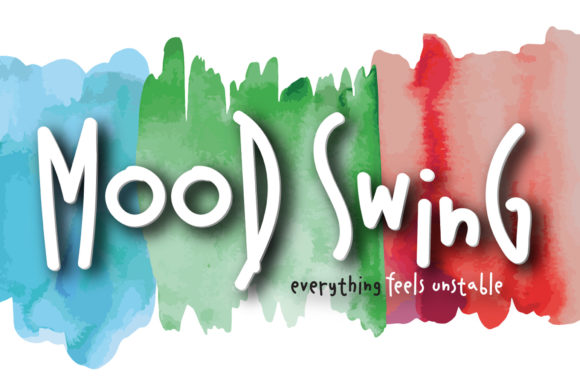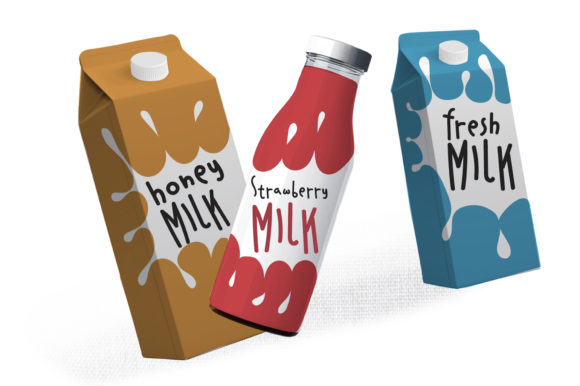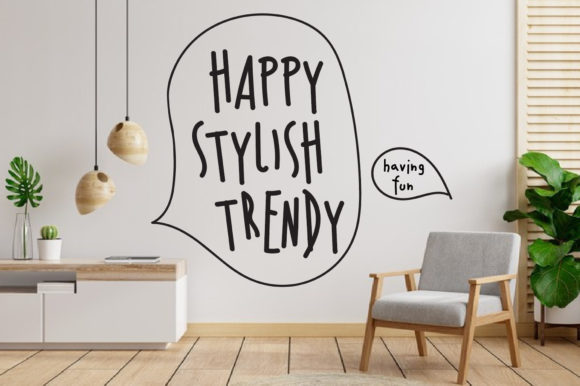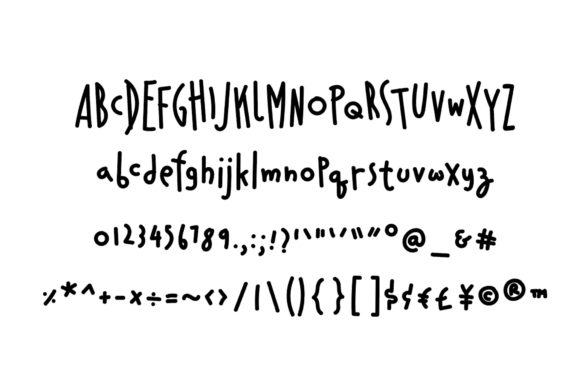
About Mood Swing Font
Mood Swing is a sweet and friendly handwritten font. Its natural and unique style makes it incredibly fitting to a large pool of designs. The only limit is your imagination!